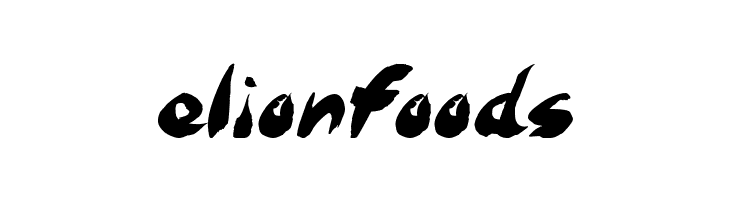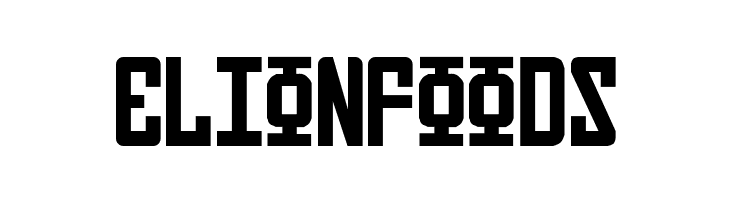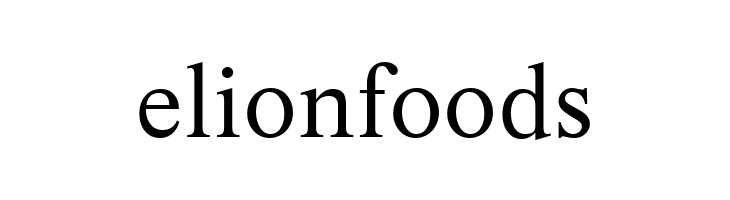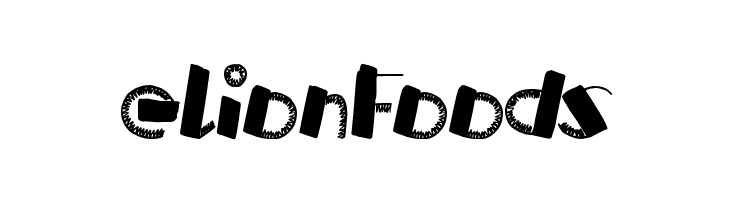
A bold, high-contrast font with geometric and industrial influences.
A monospaced font with a clean, mechanical design and uniform character spacing.
A bold, geometric font with a modern and impactful style.
A modern, handwritten-style font with thin, uniform strokes and rounded edges.
A bold, geometric font with strong, angular lines and a modern aesthetic.
A modern, sans-serif font with clean lines and excellent readability.
A decorative, narrow font with intricate flourishes and bold, elongated characters.
A classic serif font with an old-world Russian charm and elegant serifs.
A bold, decorative font with ornate details and consistent character height.
A bold, geometric font with sharp angles and a strong, modern presence.
A bold, edgy font with a hand-drawn, rebellious style.
A bold, geometric sans-serif font with an outline style.
A bold, geometric font with decorative elements and strong visual impact.
A bold, outlined font with a modern, geometric style.
A bold, brush-style font with dynamic strokes and expressive flair.
A bold, angular, and italic font with a futuristic and dynamic style.
A bold, decorative font with elongated serifs and intricate detailing.
Intricate designs inspired by Russian criminal tattoos, featuring bold, high-contrast artwork.
A distressed, grunge-style font with bold, narrow characters and a rugged appearance.
A bold, geometric font with a shadow effect and decorative elements.
A bold, italic font with dynamic, blocky characters and decorative elements.
A bold, distressed font with a grunge effect and stencil-like appearance.
Bold, shadowed, italic font with decorative elements and a dynamic style.